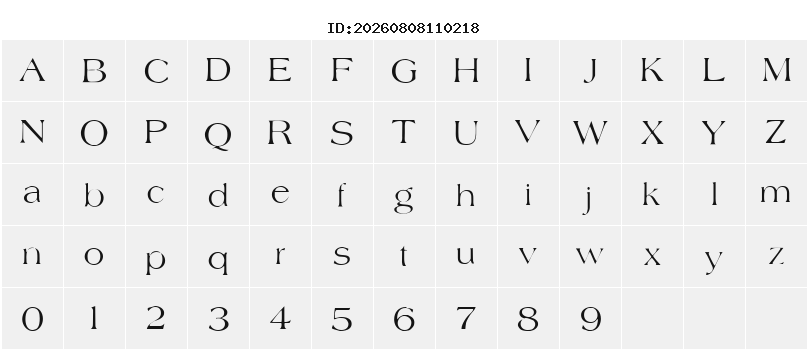
Portia Preview
About Portia.ttf
Portia.ttf is a modern, elegant sans-serif font designed for ultimate readability and visual harmony. Perfect for branding, headlines, web design, and print materials.